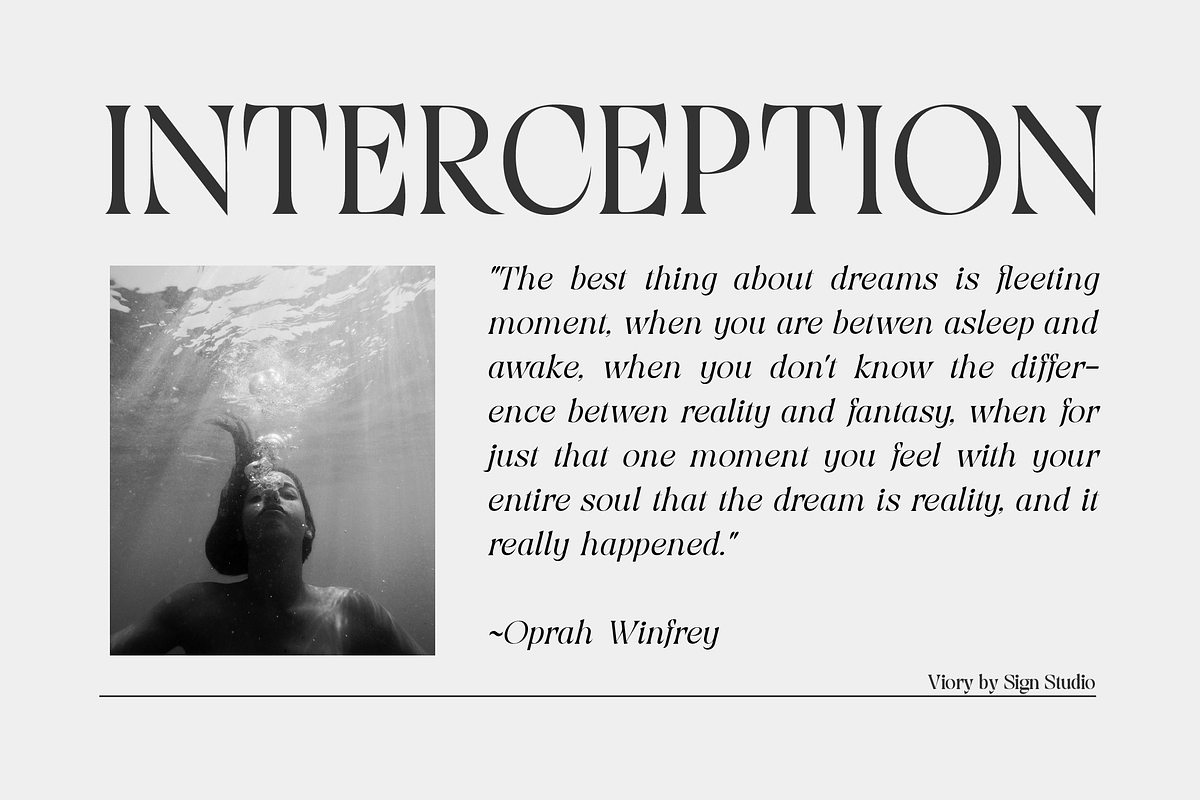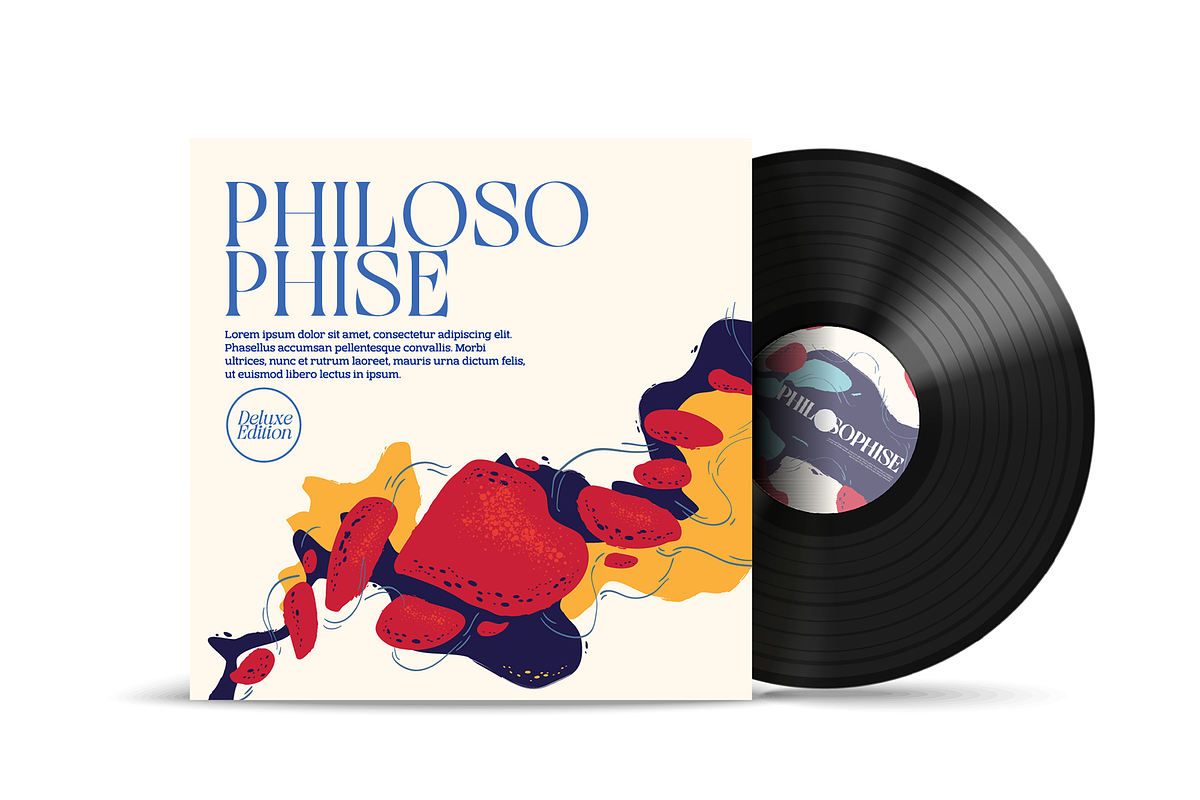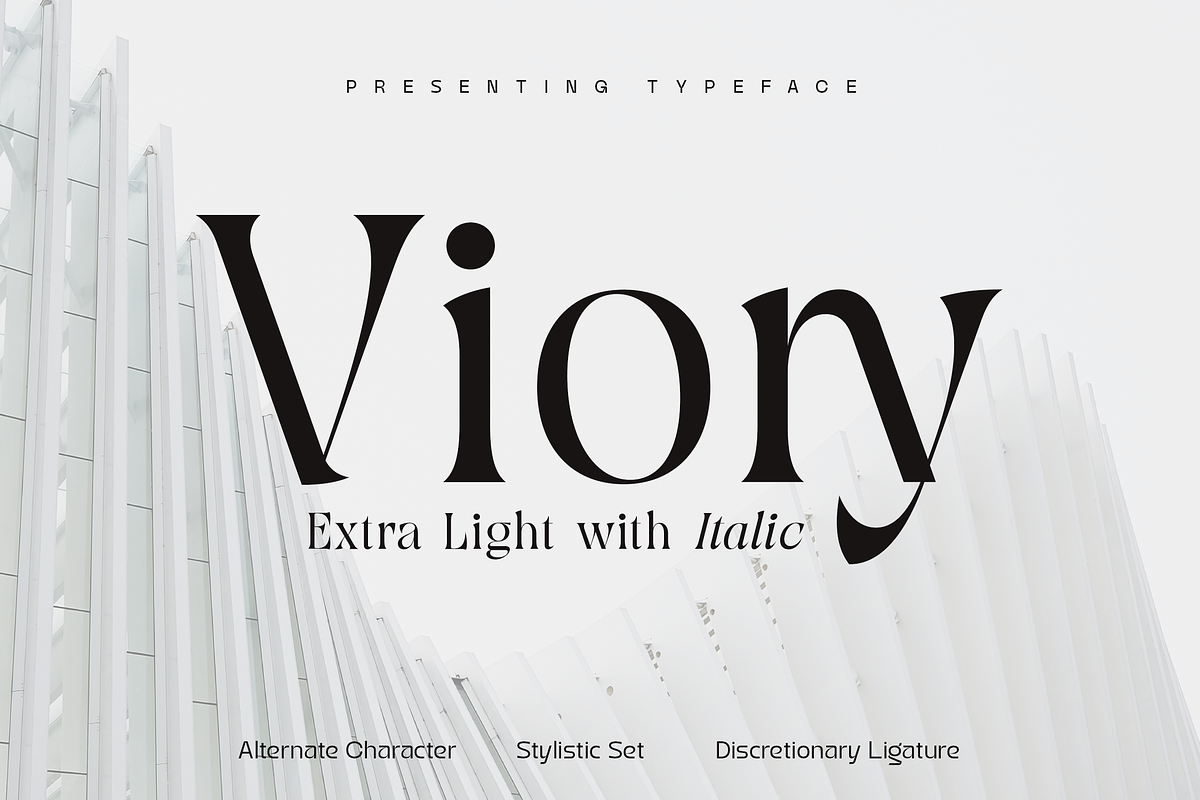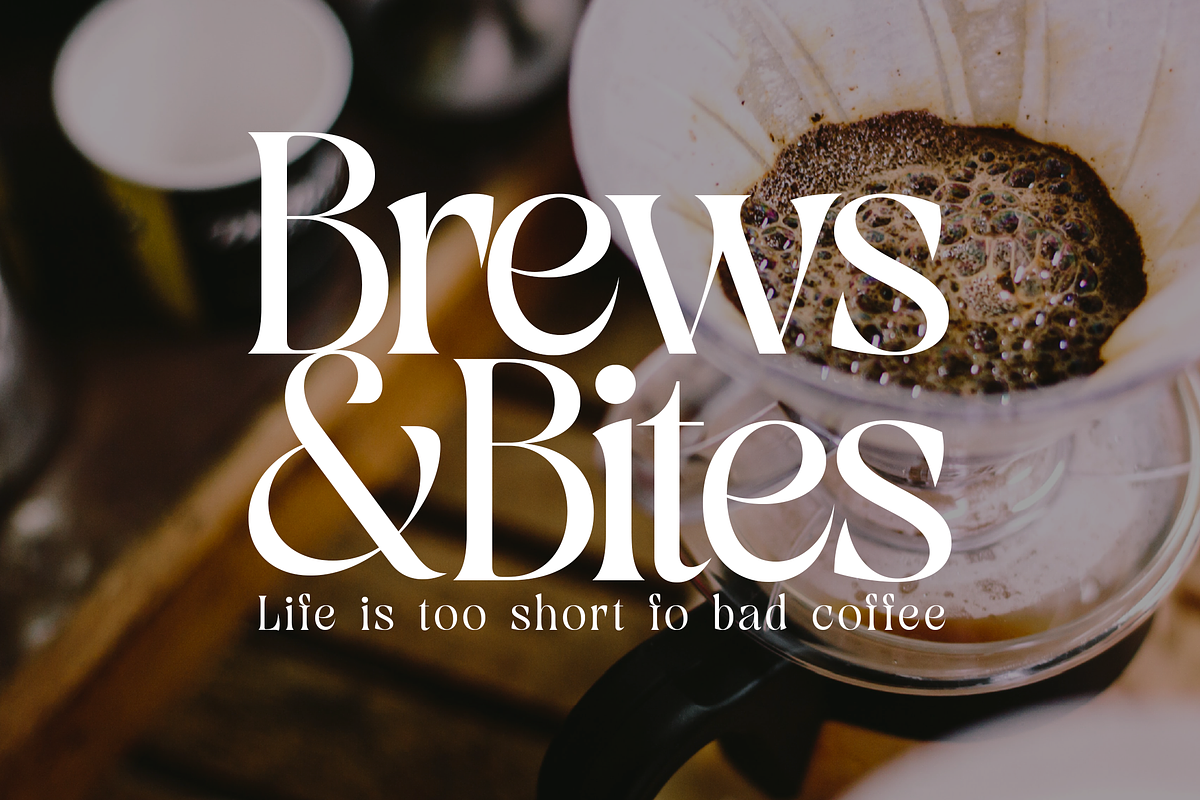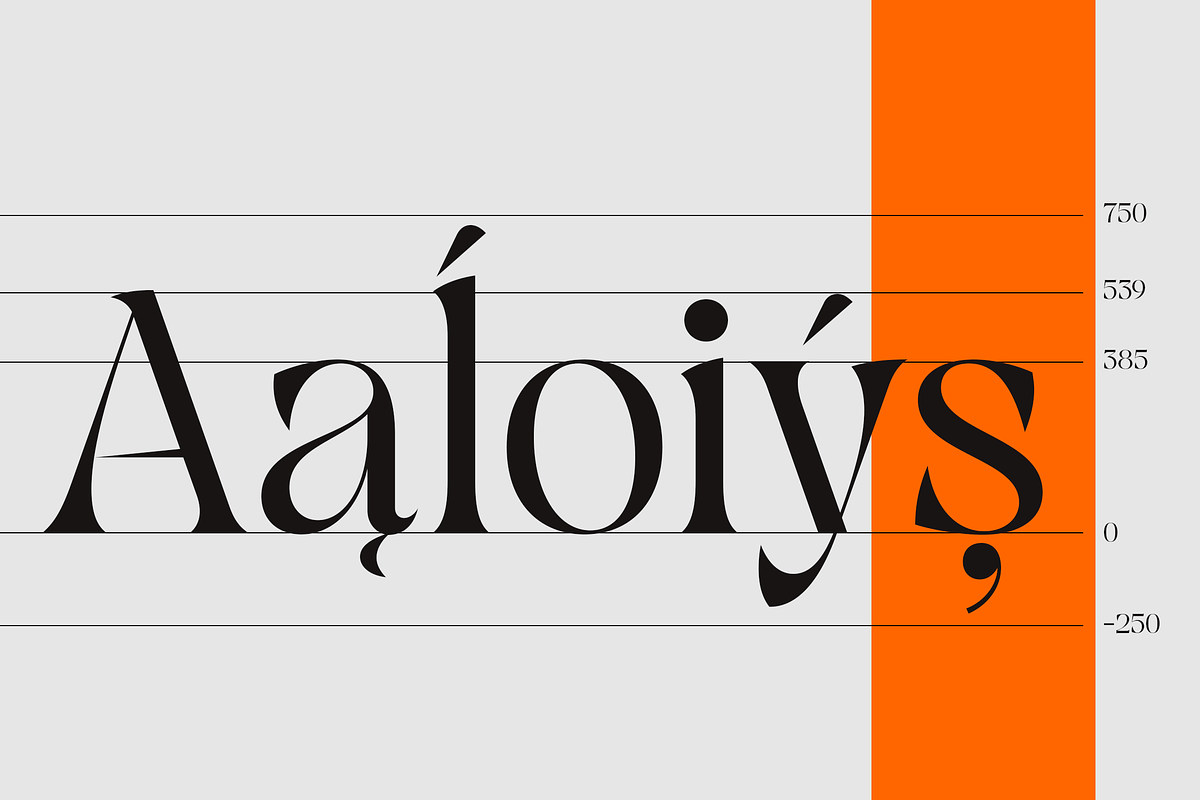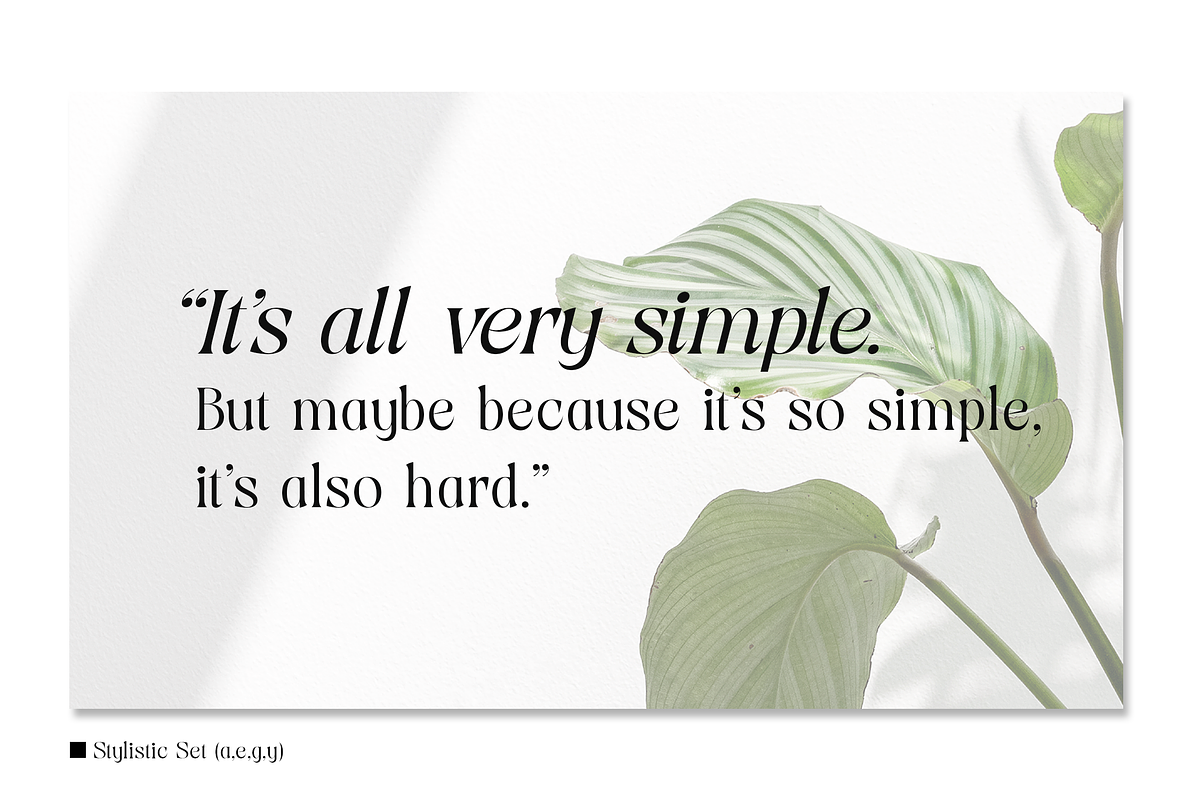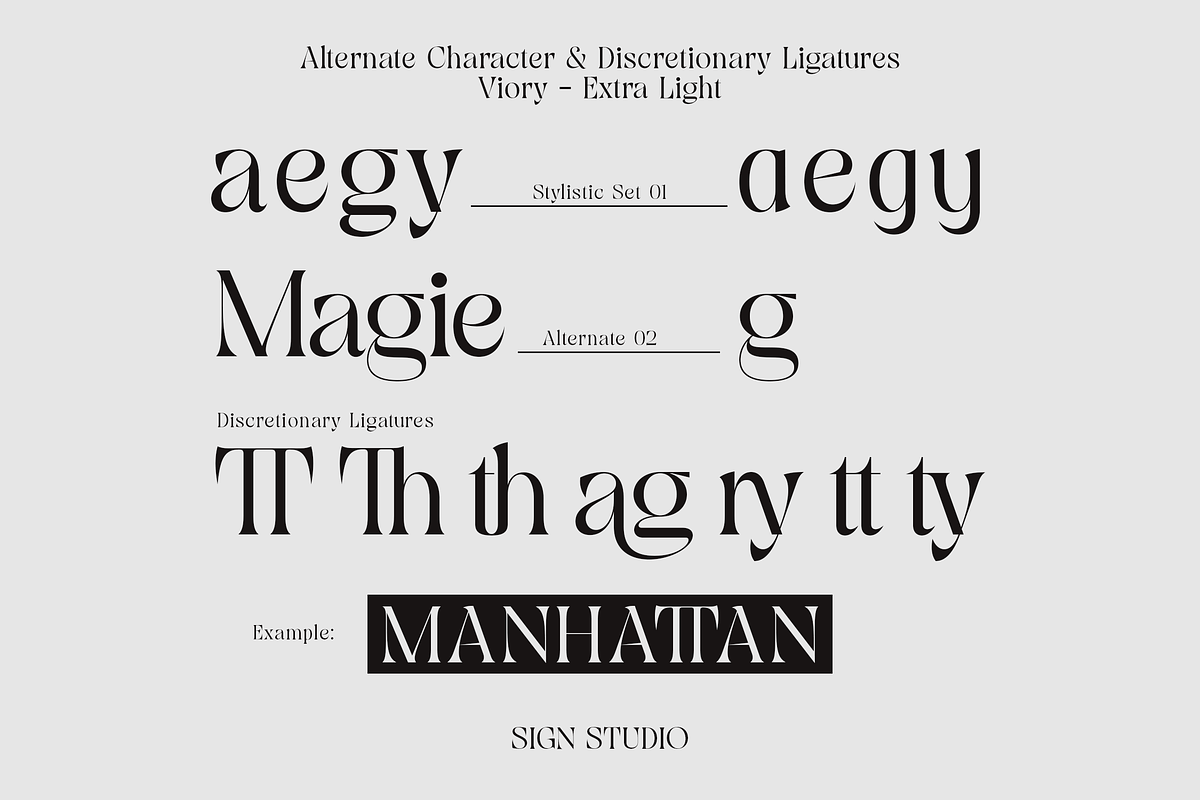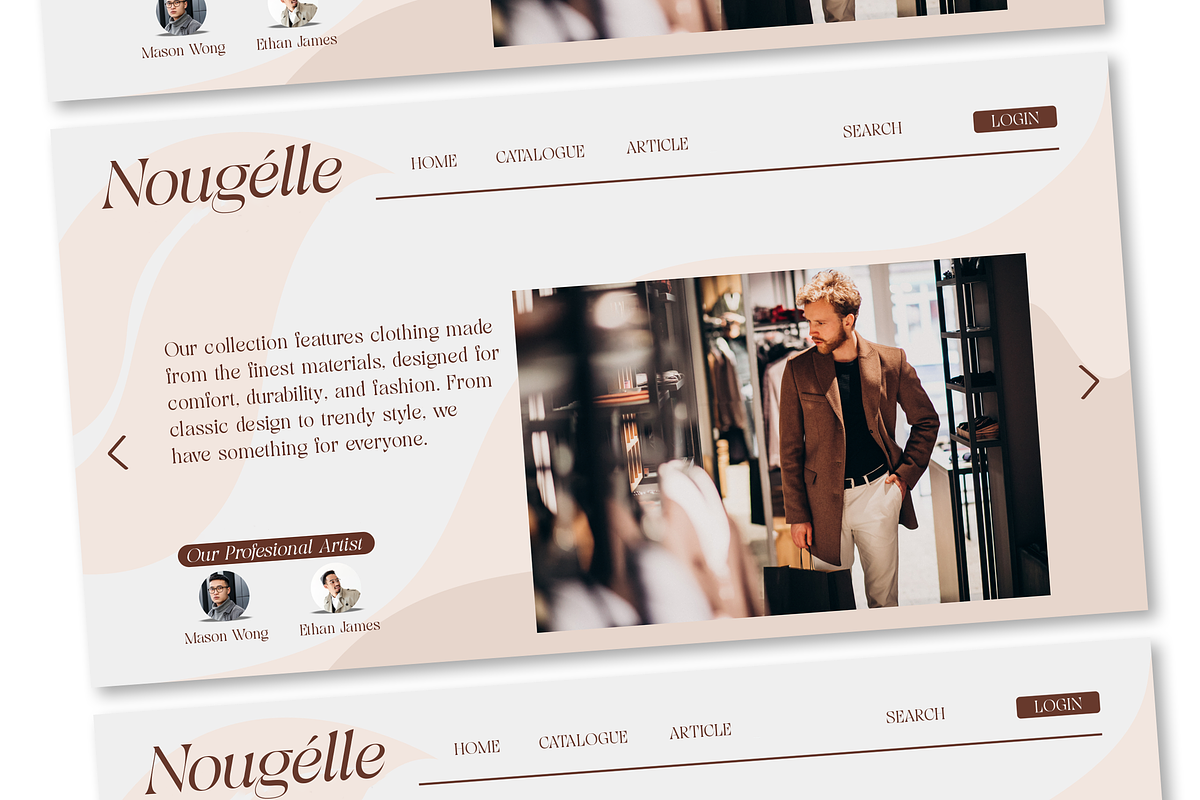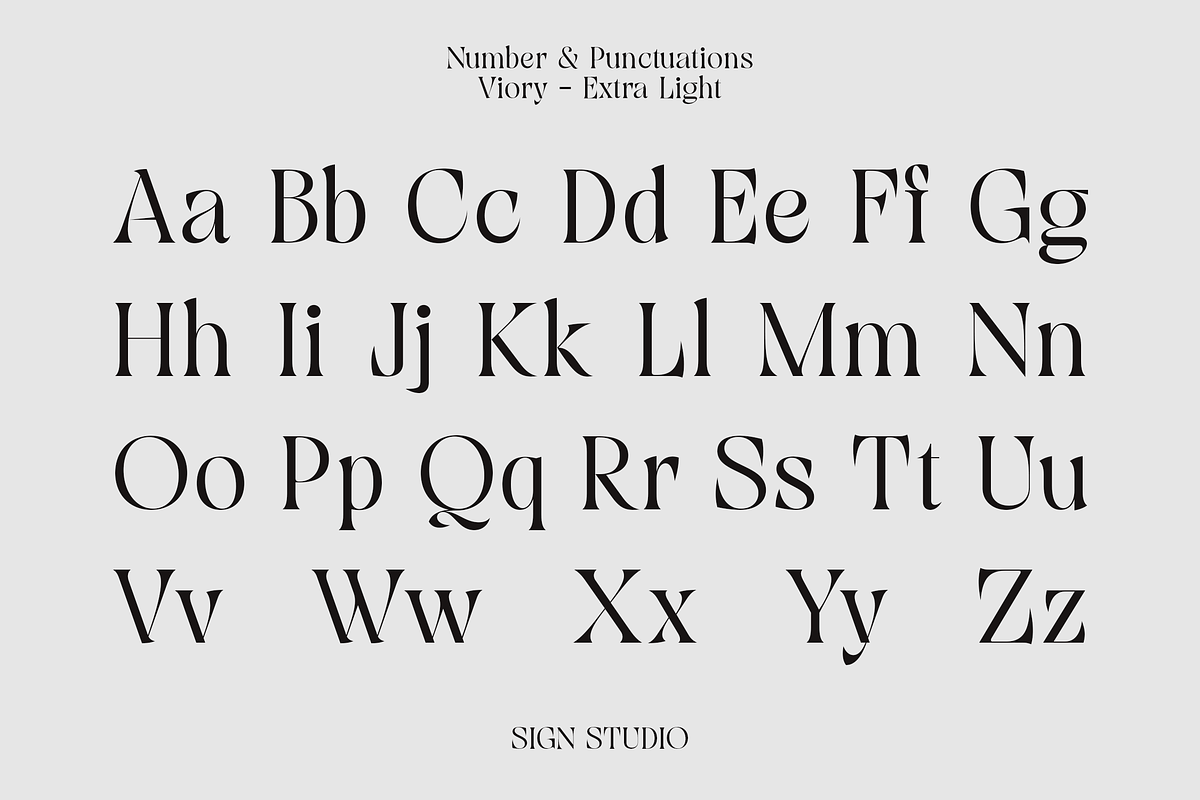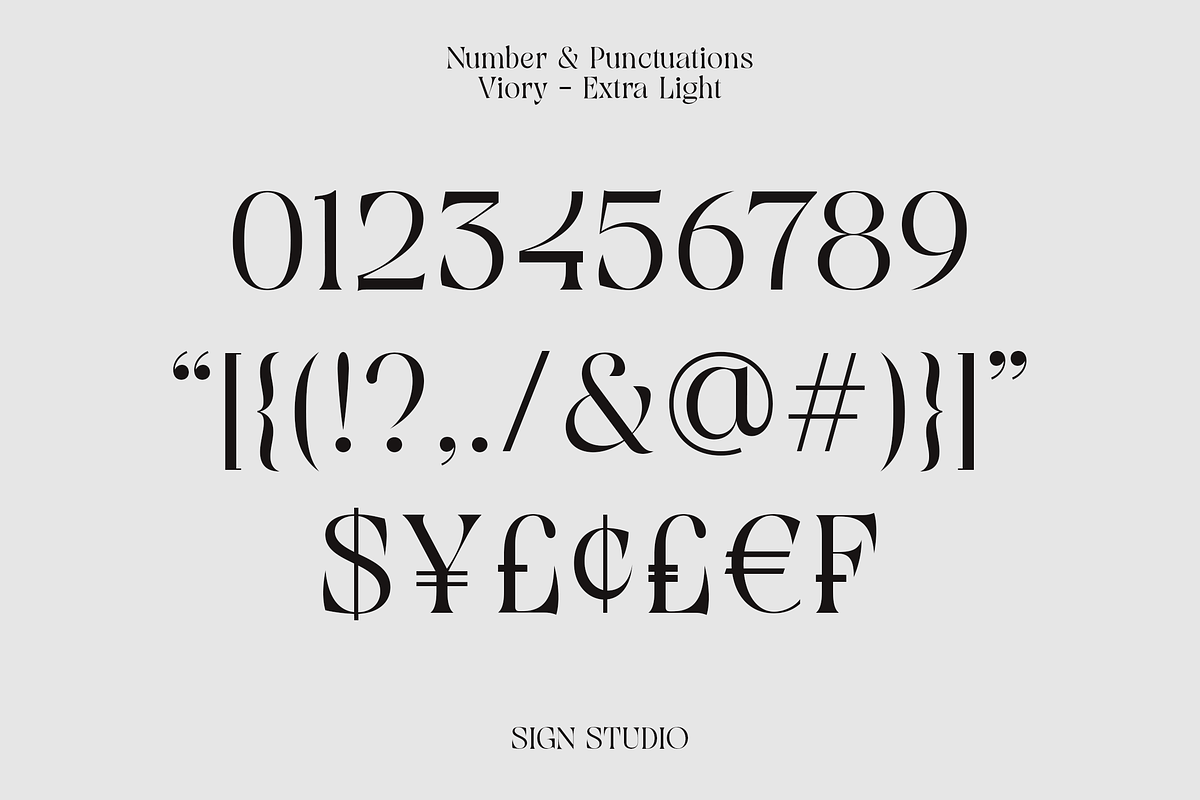
Viory - Extra Light with Italic
Viory is a versatile font family. They will complement each other to support your design. Equipped with Stylistic Set, Discretionary Ligature and Alternative Character features. Viory has a smooth shape because the pressure on each curve has been adjusted to the ideal. The impression of an elegant and classic is in this family.